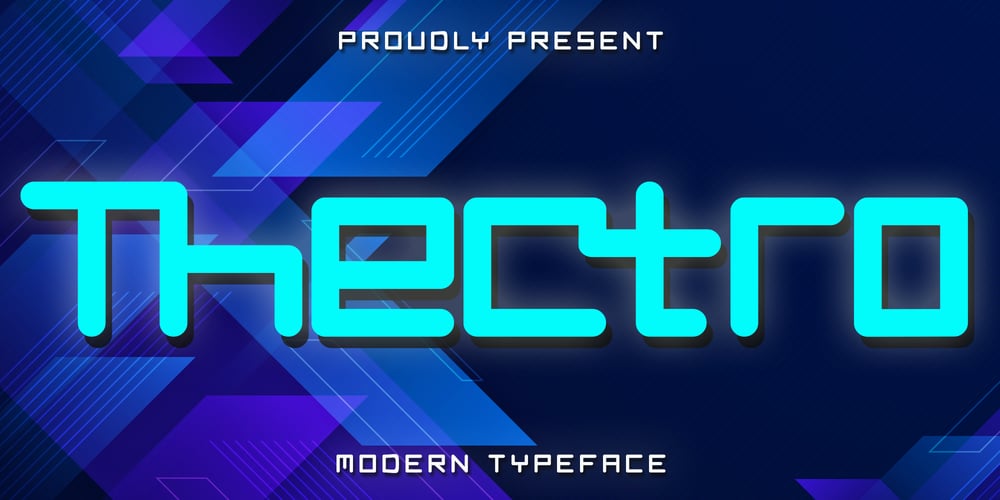
Thectro
Thectro font
Thectro Font Family was designed by Harjuno Kristanto and published by Arkrist Letter. Thectro contains 1 styles and family package options. Thectro is a serif font that is very elegant, casual, and modern.designed with a techno character but still looks very stylish and beautiful.thectro font is perfect for product names, product tags, party invitations, etc.